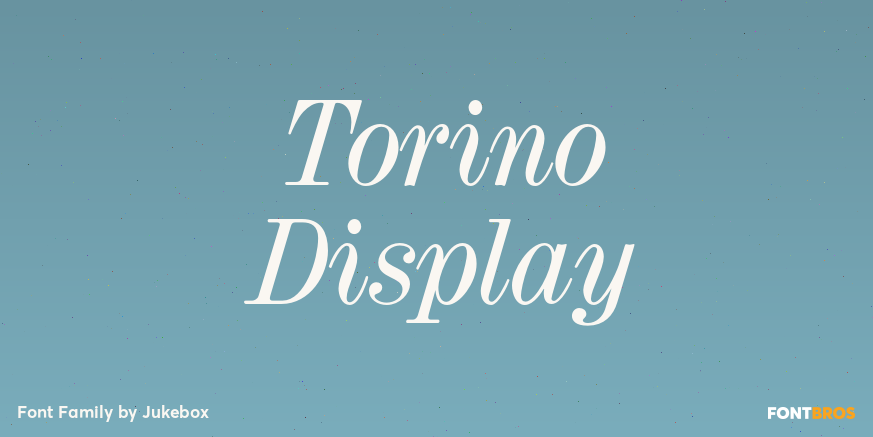
Torino Display
About Torino Display
Torino Display Italic is another one of my personal favorites! Digitally revived from an older photo-typositing face, this typeface has a ton of alternate and swash variants to give it a wide range of typographic possibilities. Some of the most interesting…